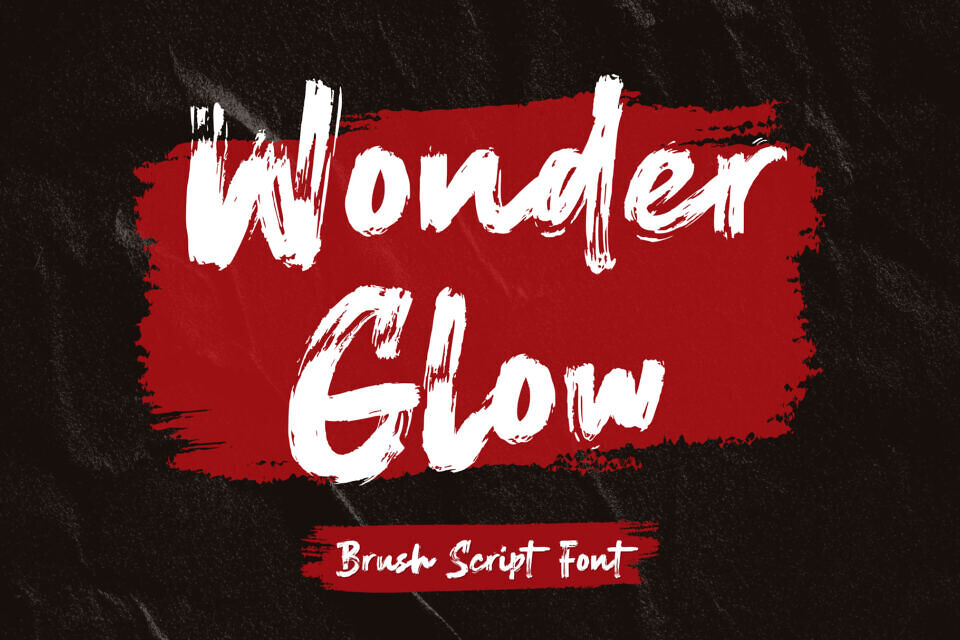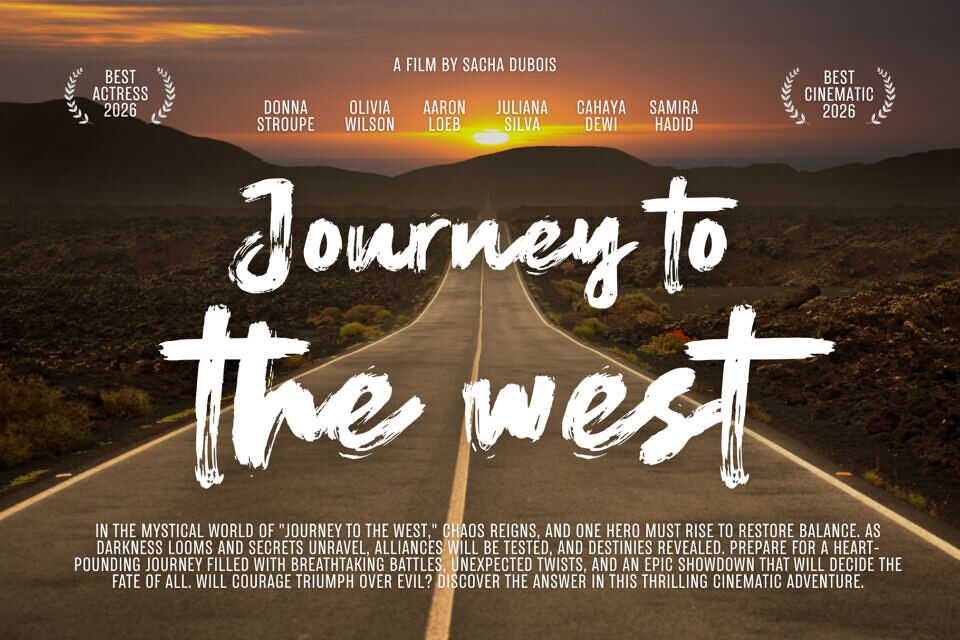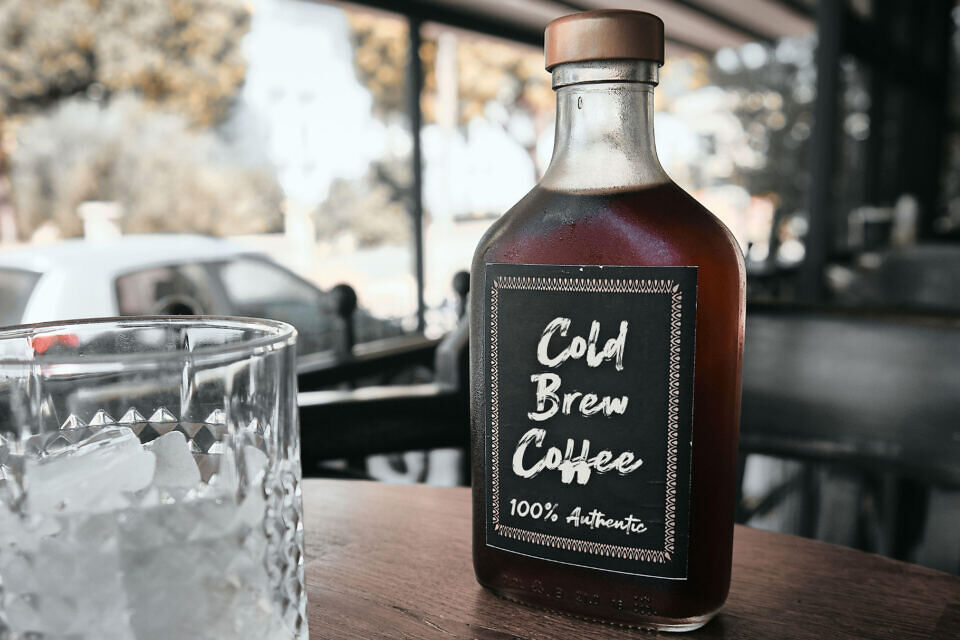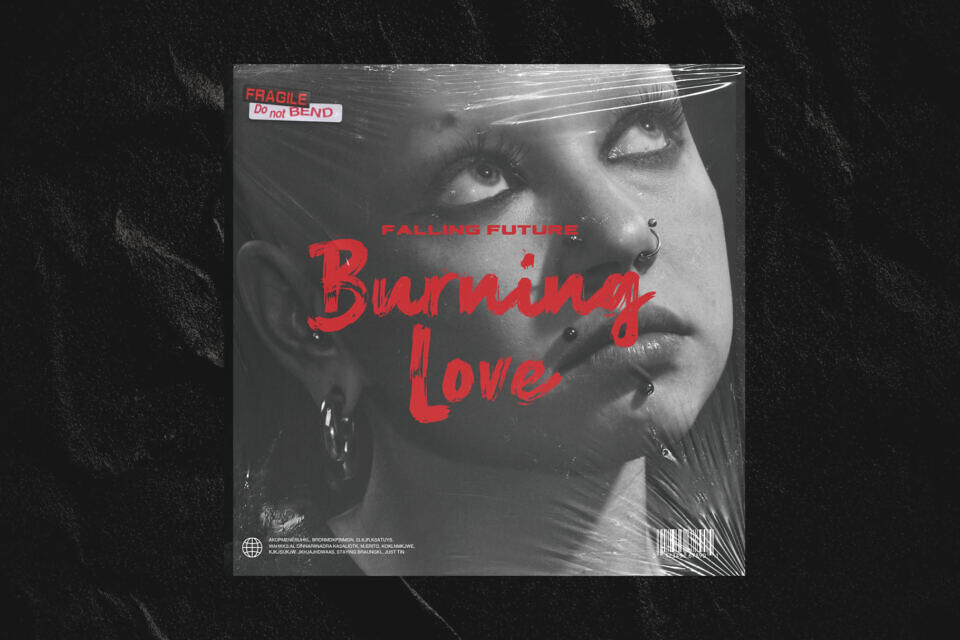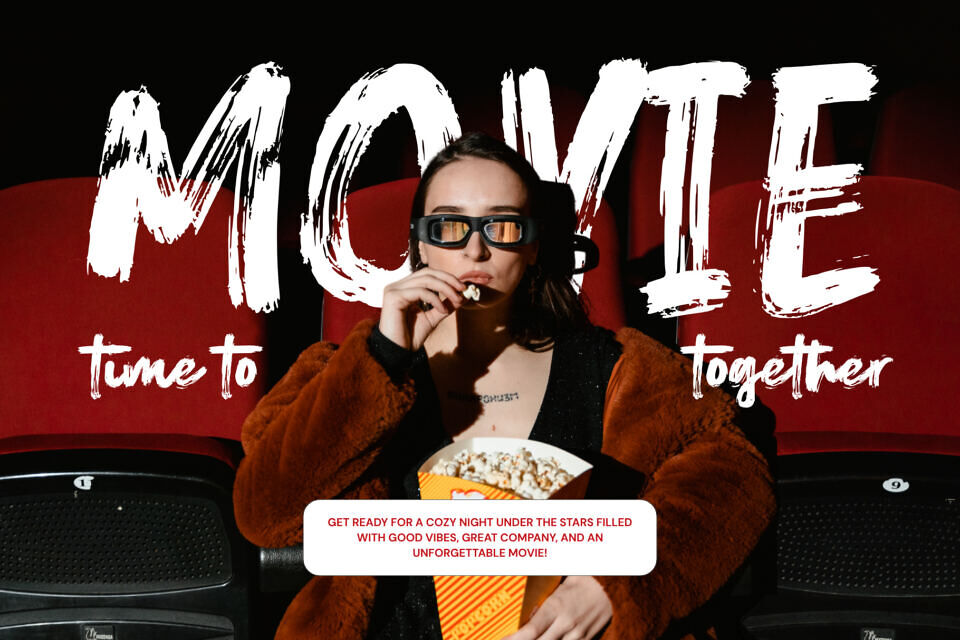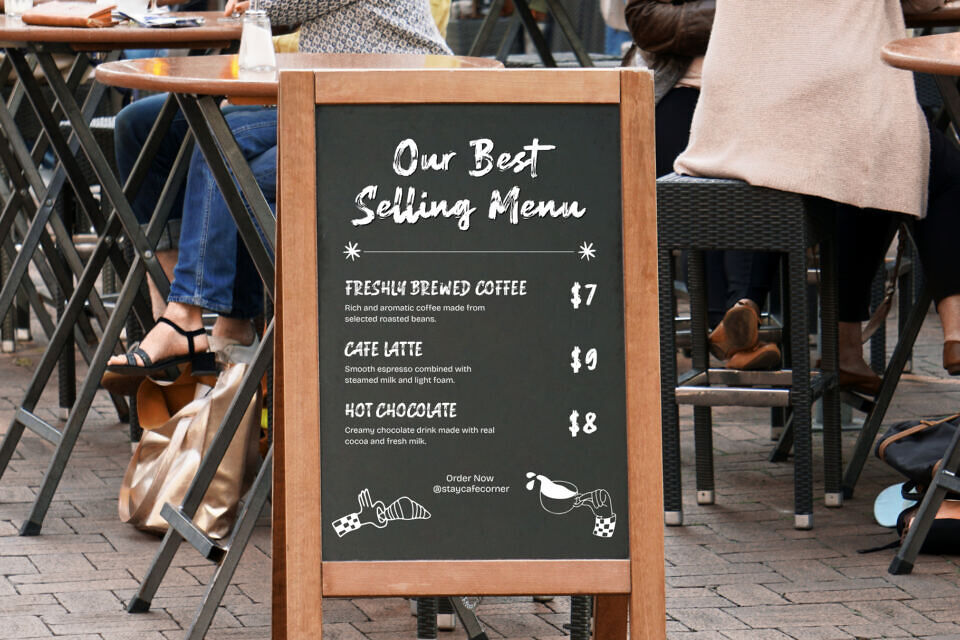
Wonder Glow Font
Wonder Glow is a bold brush script font that captures the beauty of authentic hand-drawn strokes. Crafted with real brush inspiration, this font delivers a natural, expressive, and organic feel in every letter.
Designed to reflect the true essence of handwritten brush lettering, Wonder Glow features dynamic strokes with a slightly rough texture, creating a perfect balance between raw artistry and visual harmony. Its bold weight ensures strong readability while maintaining a stylish and handcrafted look.